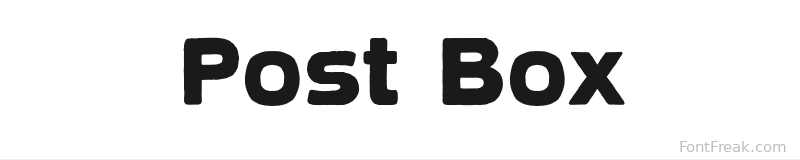
Post Box
Post Box by BLKBK Fonts is a unique display typeface that stands out with its bold and playful character. This font, categorized as a decorative typeface, features a distinctive, rounded design that exudes a friendly and approachable vibe. The stroke weight is consistently thick, providing a solid presence, while the lack of sharp contrasts enhances its legibility. The spacing is generous, allowing the letters to breathe and be easily read in various contexts. This font includes rounded edges and slightly exaggerated forms, adding a whimsical touch that can capture attention.
The Post Box font is incredibly versatile, making it an excellent choice for a range of creative projects. It is particularly well-suited for designing engaging restaurant menus, eye-catching movie posters, and fun event invitations. Additionally, its playful nature makes it perfect for branding materials aimed at children’s products or family-oriented services, where a sense of warmth and friendliness is essential. Graphic designers and small business owners will find this font invaluable for creating memorable visual identities that resonate with their target audiences.